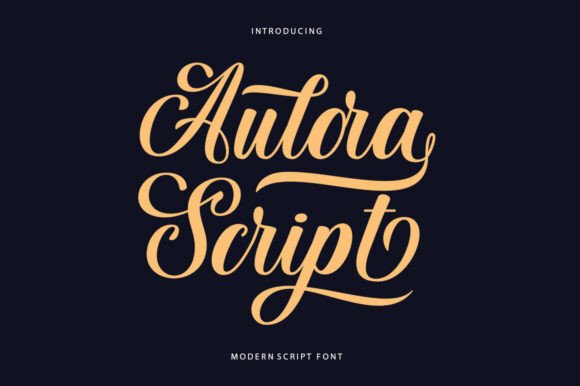
Aulora Script Font: Elevate Your Design with Elegance and Sophistication
In the world of typography, a well-crafted font can make all the difference in elevating your design from ordinary to extraordinary. Aulora Script, a stunning calligraphy script font, is here to bring style and elegance to your creative projects. With its beautiful alternative characters and unique blend of copper calligraphy with handwriting style, Aulora Script is the perfect choice for designers seeking a subtle, clean, feminine, sensual, glamorous, simple, and highly readable typeface.
Key Features of Aulora Script Font
- Beautiful Alternative Characters: Aulora Script comes with a range of beautiful alternative characters, allowing you to add a touch of uniqueness to your designs.
- Copper Calligraphy with Handwriting Style: The font combines the classic elegance of copper calligraphy with the warmth of handwriting style, creating a distinctive and captivating look.
- Elegant and Sophisticated: Aulora Script is designed to bring style and elegance to your designs, making it perfect for formal and luxurious projects.
- Subtle, Clean, and Readable: The font’s subtle and clean design ensures that it is highly readable, even in smaller sizes.
- Feminine, Sensual, and Glamorous: Aulora Script’s elegant and refined aesthetic makes it an excellent choice for projects that require a touch of femininity, sensuality, and glamour.
Aulora Script font is a stunning calligraphy script font that can elevate your designs to new heights of elegance and sophistication. With its beautiful alternative characters, unique blend of copper calligraphy and handwriting style, and highly readable design, Aulora Script is the perfect choice for a wide range of creative projects. Whether you’re designing invitations, labels, menus, logos, or romantic novels, Aulora Script is sure to bring style, elegance, and refinement to your work.